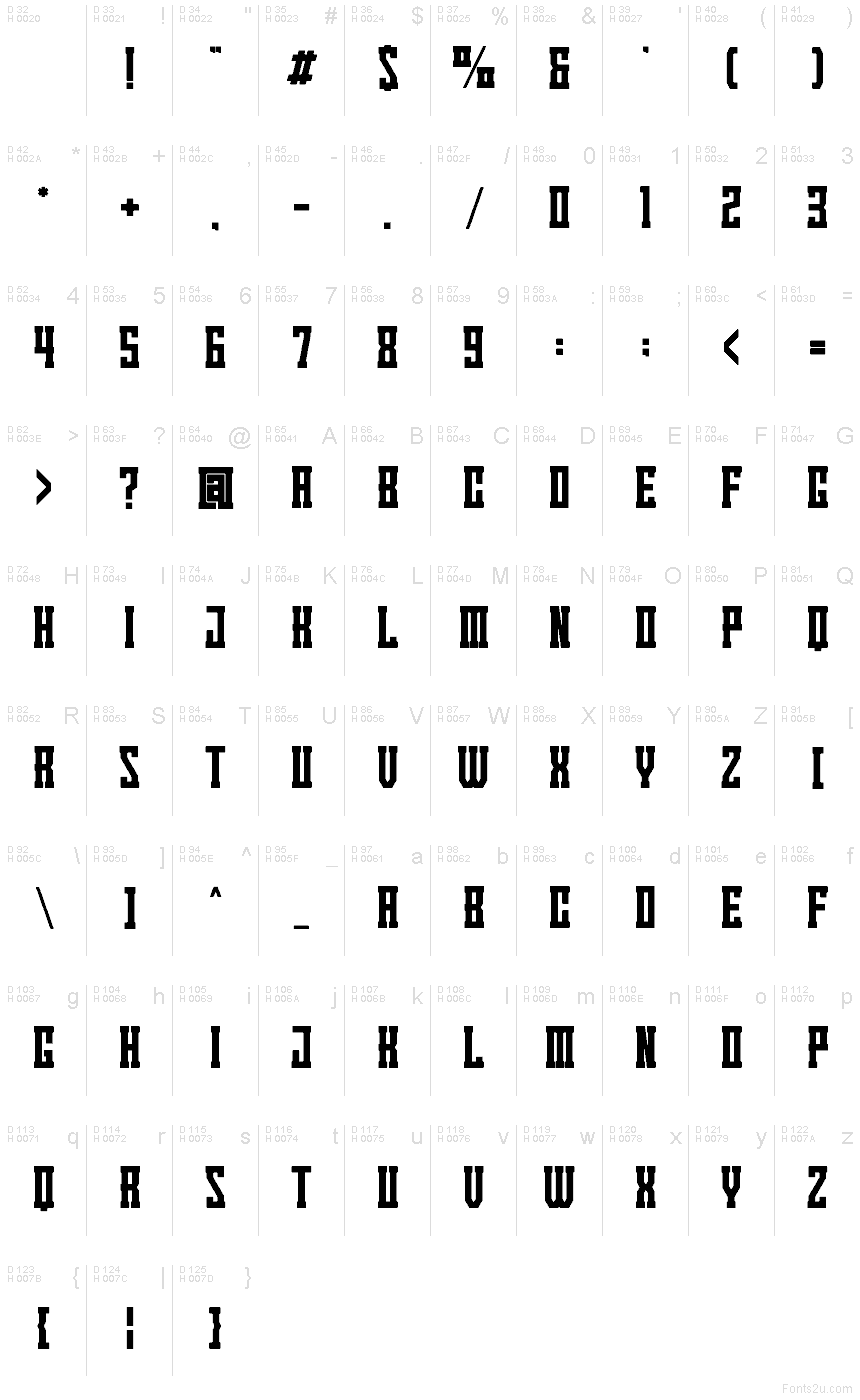
Robern font by Ermedia Studio is a free slab serif display font built around chunky vertical rhythm and recessed, rectangular counters that feel almost machined. The letterforms are tall, blocky, and confident, with sturdy slabs that land like a stamp-crisp edges, tight spacing, zero fluff. It hits that rare sweet spot between vintage grit and modern utility, so headlines read loud and clean without losing character.
Using Robern, bold statements come easy: posters, sports graphics, craft beer labels, game titles, signage, badges, and event branding all snap into focus. This free font loves big sizes and slightly tight tracking; pair it with a light geometric sans for subheads to let its heavy slabs do the talking.